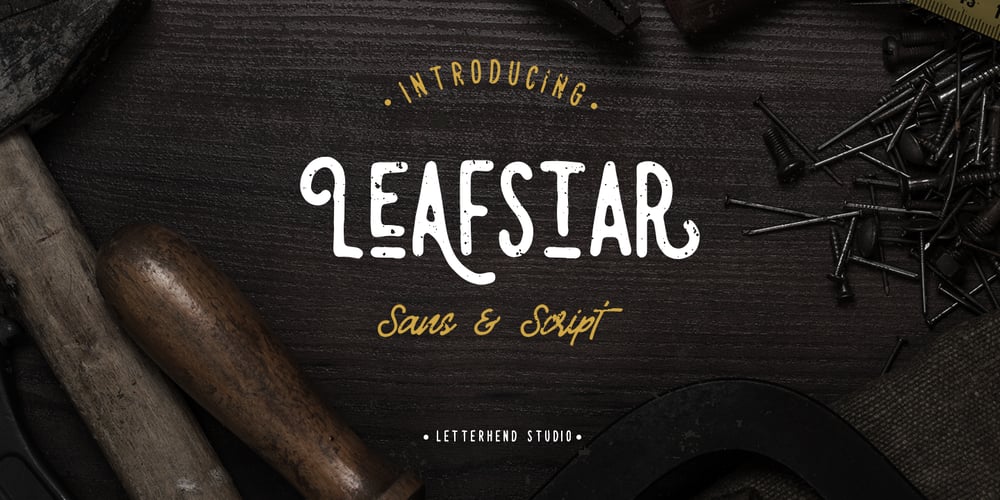
Leafstar Font Family was designed by Hendry Juanda and published by Letterhend. Leafstar contains 2 styles and family package options. Leafstar is a vintage styled font duo. It comes with a unique sans and script with the retro feel. The are perfect to use in logotype, badges, sign boards, posters, headline text, apparel, wedding invitations and more. This font has many OpenType features like ligature, stylistic alternates, contextual alternates, swashes and has multi-language support.